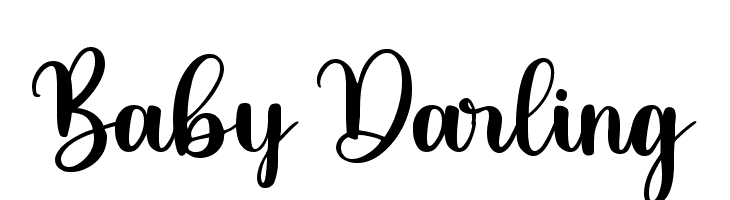
A bold, playful handwritten font with a casual and energetic style.
A bold, playful handwritten font with rounded edges and a strong visual impact.
A bold, expressive handwritten font with dynamic strokes and high contrast.
A playful, hand-drawn font with bold, rounded characters.
A modern, cursive font with elegant, flowing lines and a handwritten feel.
A bold, cursive font with a modern and expressive style.